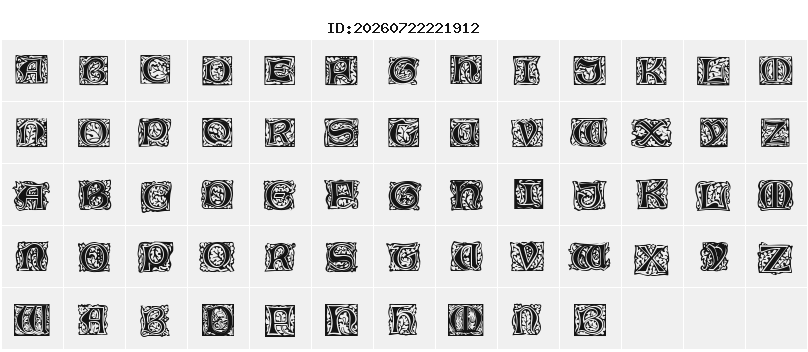
• Font Name: Morris Jenson Initialen
• Designer: William Morris
• Manufacturer: Kelmscott Press
• Description: These initials come from originals by the famous artist William Morris, Kelmscott Press. Upper case keys and lower case key contain two different fonts. Collected, scanned, digitised, and newly organised by Typo-Graf on the 8th of January 2015.